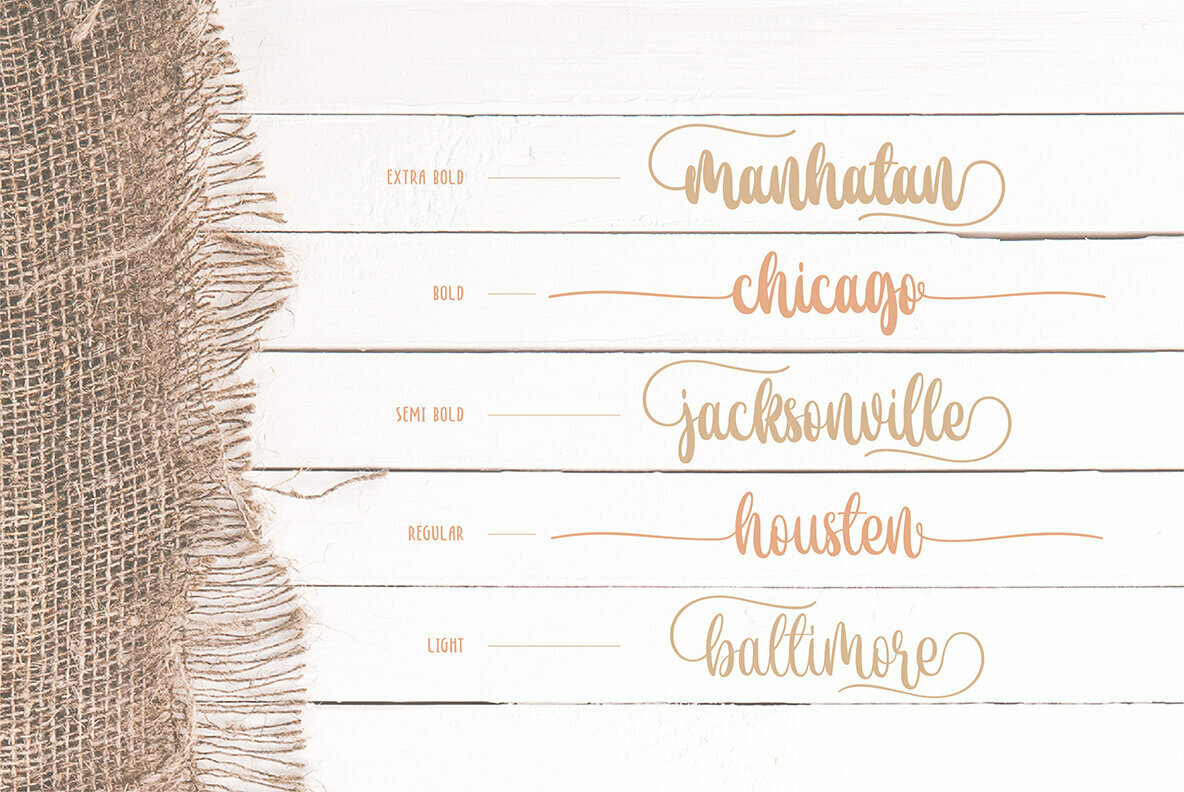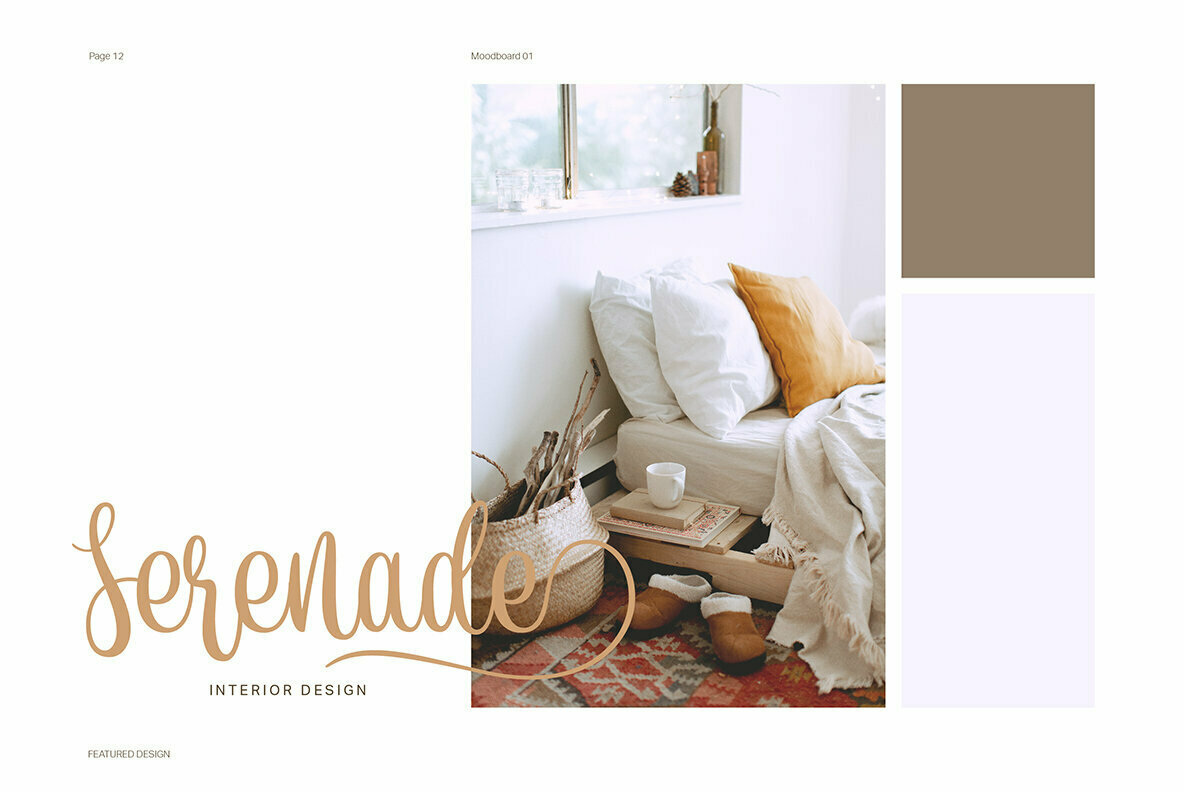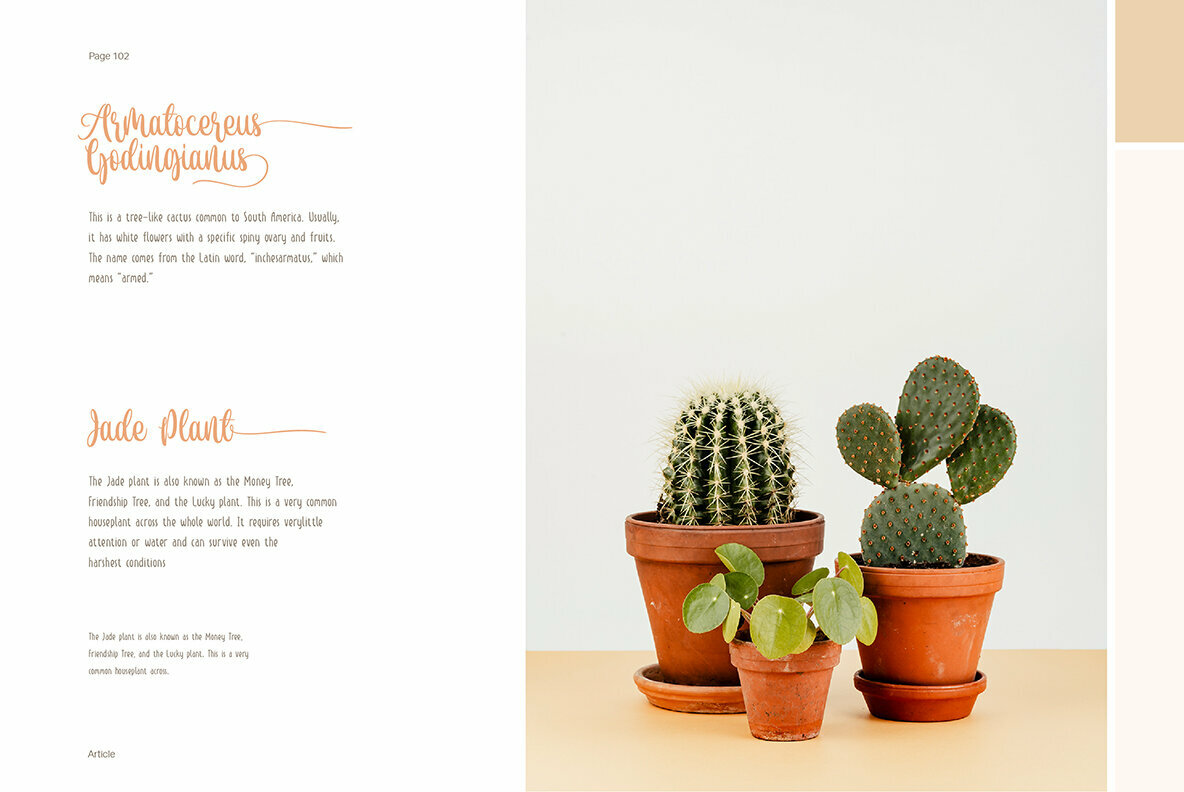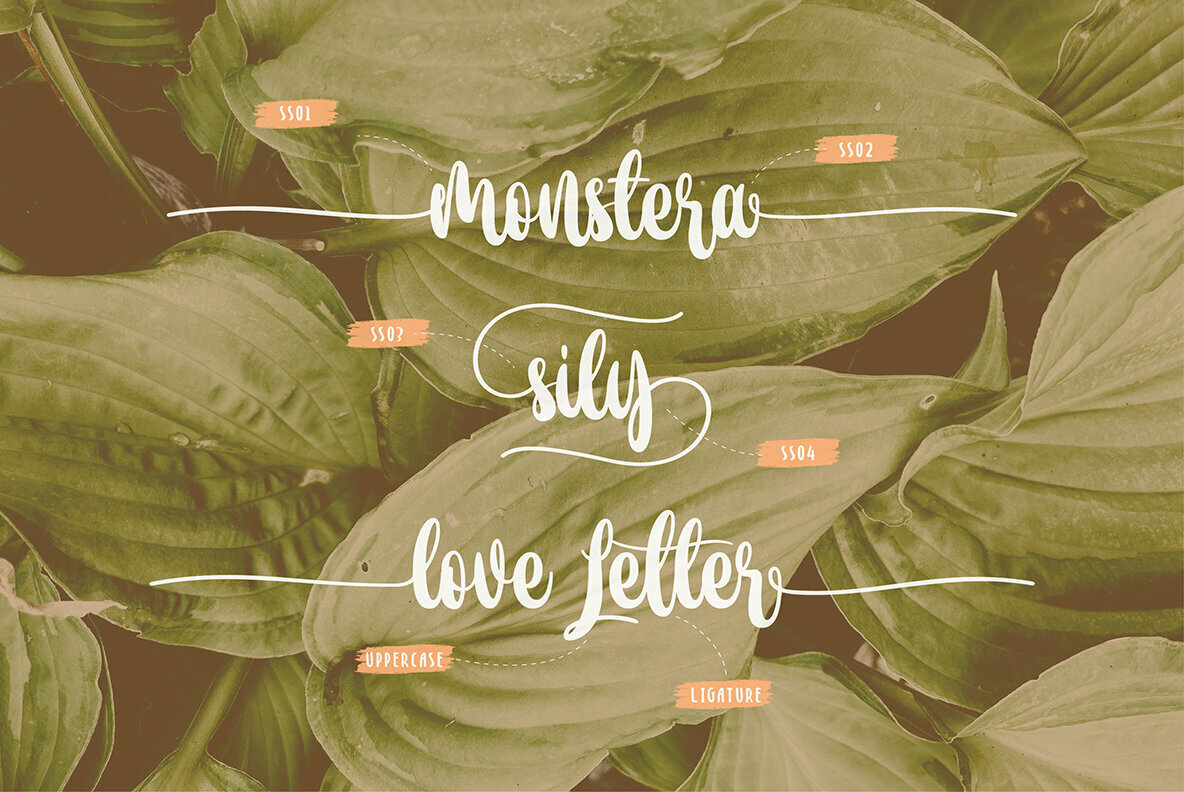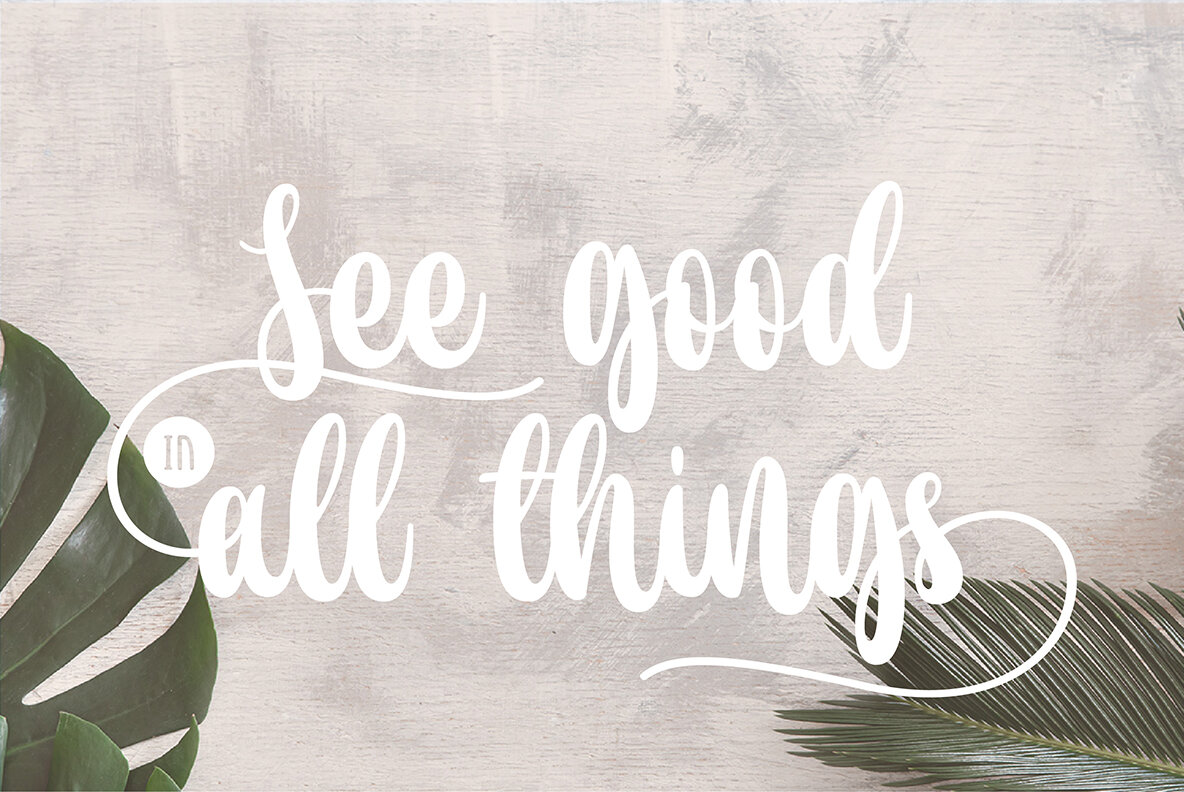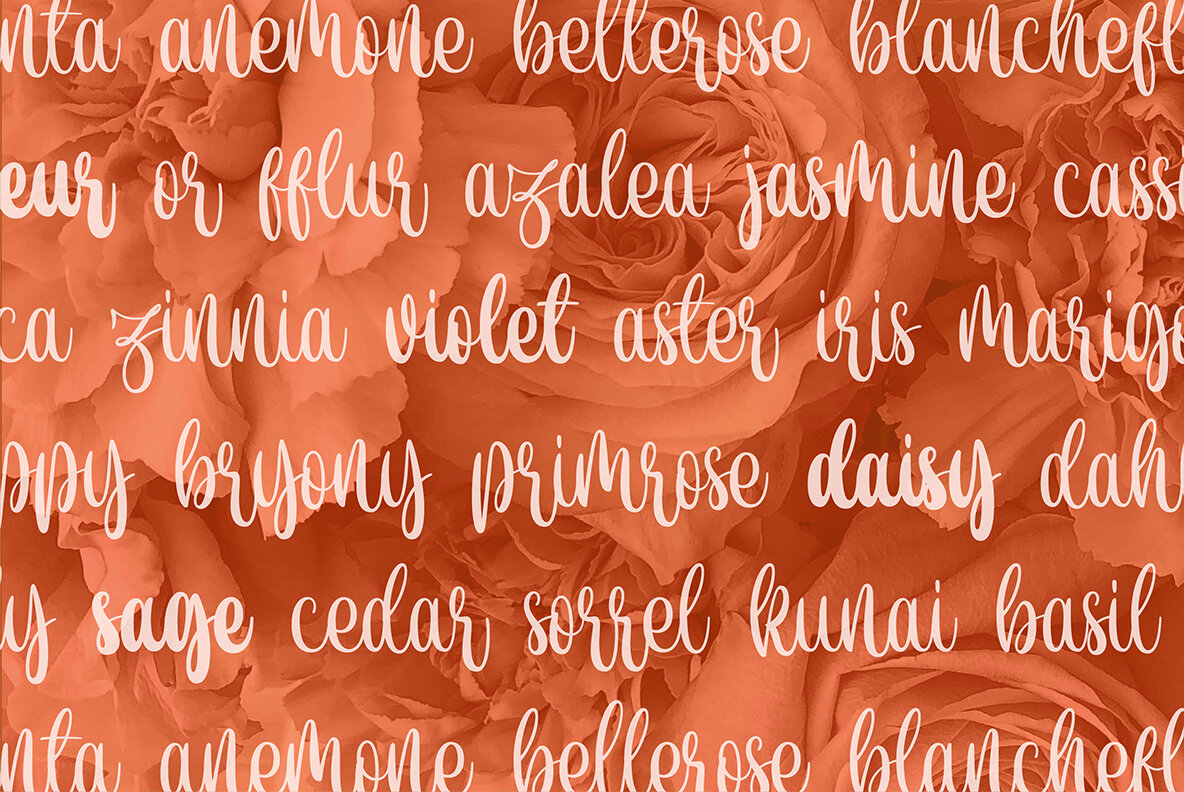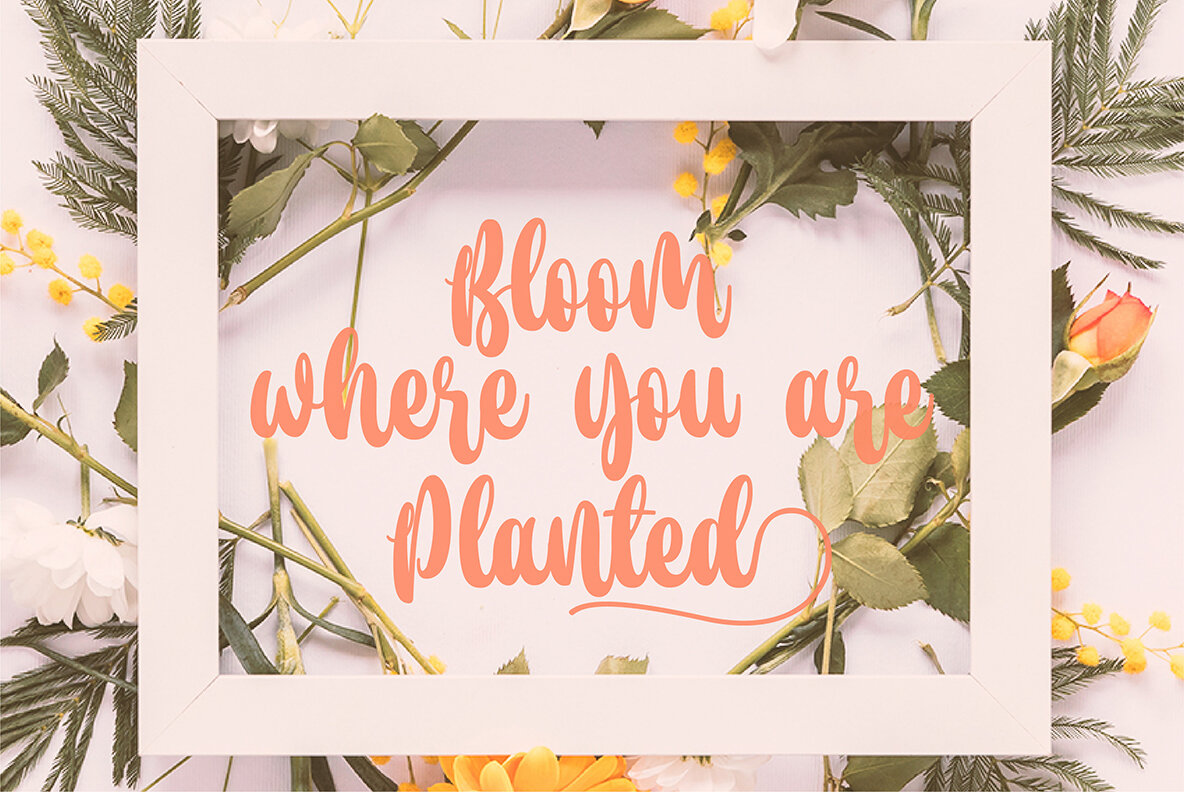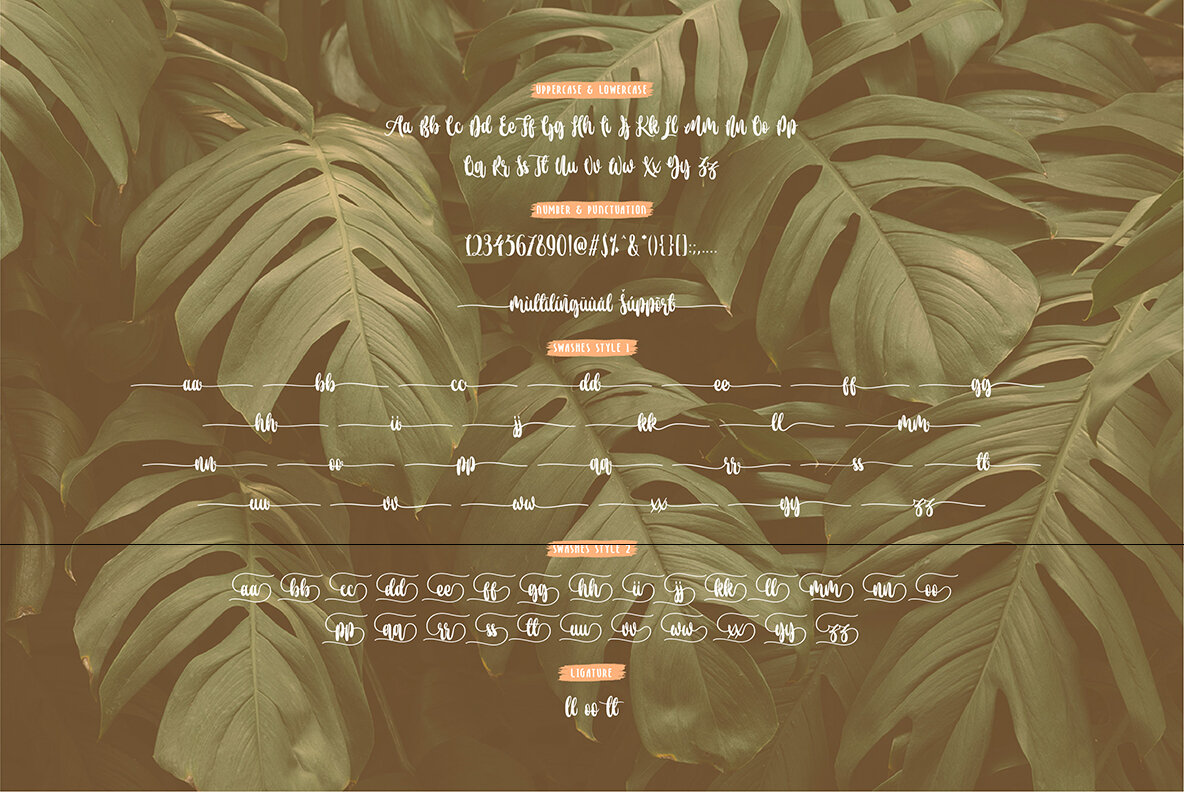
de Floras Font
De Floras offers a beautifully crafted script typeface that exudes charm and warmth, skillfully designed by hand. Featuring five distinct weights—light, regular, semi-bold, bold, and extra bold—this typeface provides an array of choices to suit any design project. Its graceful start and end swashes are sure to capture the attention and admiration of anyone who beholds them. This typeface is particularly well-suited for creating exquisite wedding invitations, birthday cards, and various other forms of personal greetings.De Floras: Elegantly Crafted Script Typeface